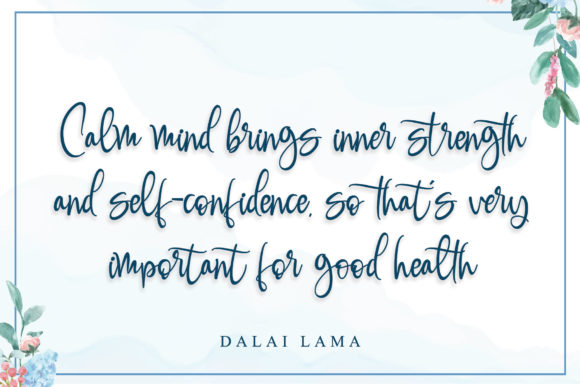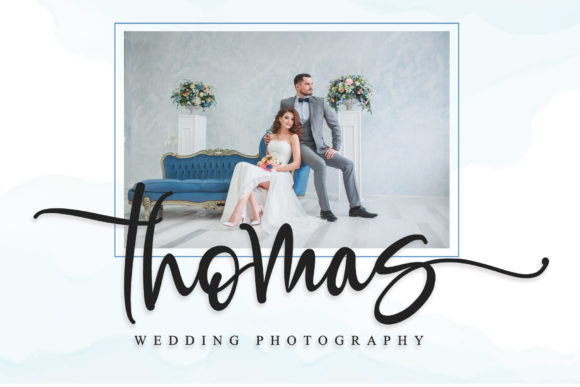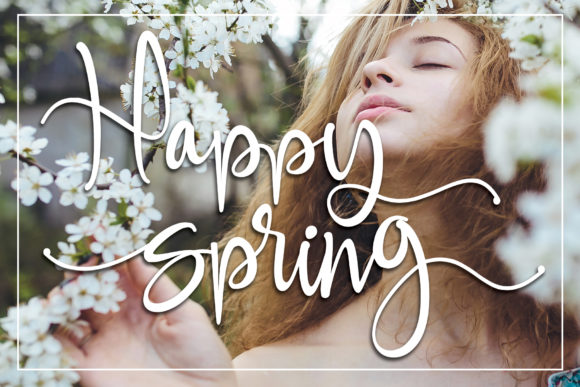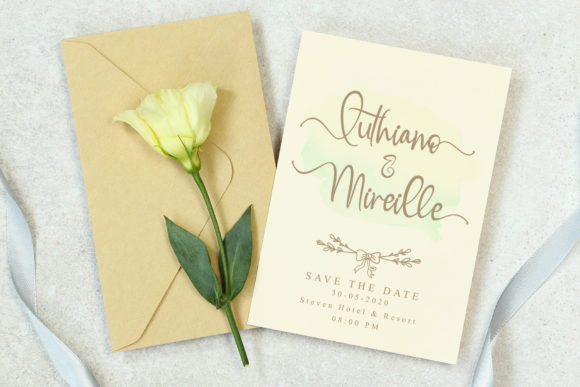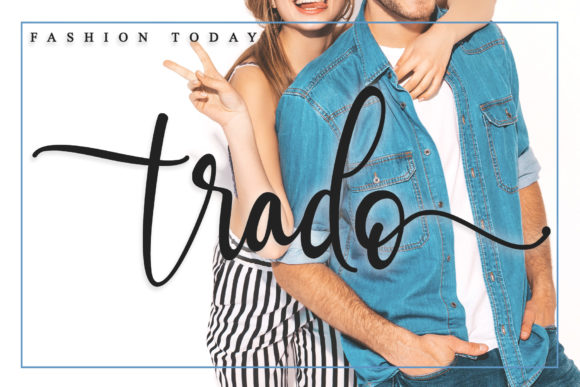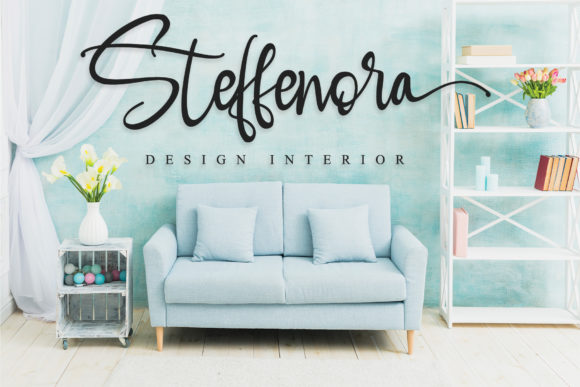
Introducing Boomolla Font: Elevate Your Designs with Elegance and Versatility
In the world of typography, a font can make or break the aesthetic of a design. For designers and crafters looking to add a touch of modern elegance and sophistication to their projects, Boomolla Font is an exceptional choice. This beautiful handwritten font boasts a modern look, complete with gorgeous swashes and ligatures, making it incredibly versatile for a wide range of applications.
What Makes Boomolla Font Stand Out?
Boomolla Font is not just any ordinary script font. Its standout features include:
- Modern Handwritten Look: Boomolla offers a fresh and contemporary handwritten appearance that can instantly elevate the look of your designs.
- Gorgeous Swashes and Ligatures: The font comes equipped with stunning swashes and ligatures, adding a decorative touch to any text and making it perfect for projects that require a bit of flair.
- Special Features: The font includes a wealth of special features such as alternate glyphs and ligatures, providing you with a plethora of options to customize your text.
Applications of Boomolla Font
The versatility of Boomolla Font makes it suitable for a variety of design projects, including:
- Branding and Logos: Create memorable and elegant brand identities with Boomolla’s unique and stylish script.
- Stationery and Invitations: Add a touch of sophistication to your stationery, invitations, and greeting cards.
- Packaging: Stand out in the market with beautifully designed packaging that incorporates Boomolla’s modern yet elegant look.
- Digital Media: Enhance your website, social media posts, and digital advertisements with a font that exudes modernity and style.
Why Choose Boomolla Font?
With so many fonts available, why should Boomolla be your go-to choice? Here are a few compelling reasons:
- Unique and Memorable: Boomolla’s distinctive look ensures that your designs will be remembered. Its elegant and modern appearance sets it apart from more traditional fonts.
- Time-Saving: The inclusion of numerous swashes, ligatures, and alternate glyphs means you have everything you need in one font. This can significantly reduce the time spent on design, allowing you to focus on other creative aspects.
Tips for Using Boomolla Font Effectively
To get the most out of Boomolla Font, consider the following tips:
- Experiment with Swashes: Don’t be afraid to try out different swashes and ligatures. They can add a unique touch to your text and make it stand out.
- Mix and Match: Combine Boomolla with other fonts for interesting contrasts. Its modern look pairs well with both serif and sans-serif fonts.
- Consider the Context: Think about the message you want to convey. Boomolla’s elegance makes it perfect for luxury brands, artistic projects, and anything that requires a sophisticated look.
Boomolla Font is a powerful tool for designers and crafters looking to infuse their projects with a modern, elegant look. Its combination of beautiful swashes, ligatures, and ease of use through PUA encoding makes it a versatile and valuable addition to any design toolkit. Whether you’re working on branding, stationery, packaging, or digital media, Boomolla is sure to enhance your designs and leave a lasting impression.